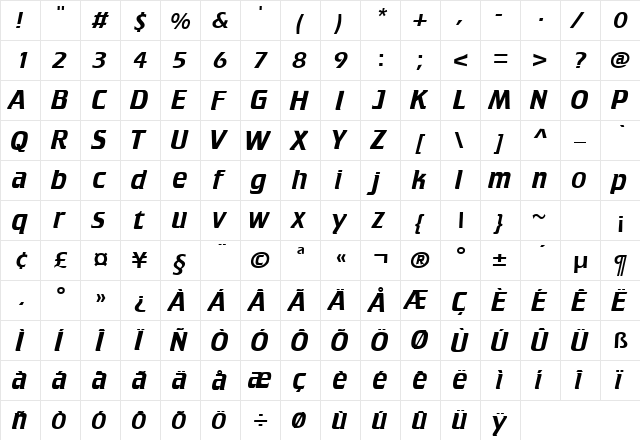
Crillee Plain Plain
Design Context for Crillee Plain Typeface
Crillee Plain takes a measured approach to typography — its balanced proportions and neutral character make it a reliable workhorse for both digital and print work.